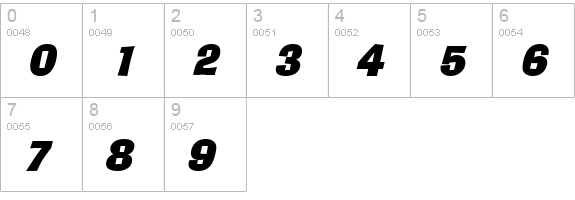
Alor BoldItalic Font Details
Alor BoldItalic is a versatile and eye-catching font that adds a touch of elegance and sophistication to any design project. Its bold and italic style creates a strong visual impact, making it perfect for headlines, logos, and branding materials. The unique design of Alor BoldItalic strikes a perfect balance between modernity and classic elegance, making it suitable for a wide range of applications. What's even better is that Alor BoldItalic is completely free to download at FontsMarket.com. This means you can easily access this stunning font and incorporate it into your projects without any cost. Whether you're a graphic designer, a web developer, or a hobbyist looking to add a professional touch to your creations, Alor BoldItalic is the perfect choice for you. Download it now and elevate your designs with this exceptional font.